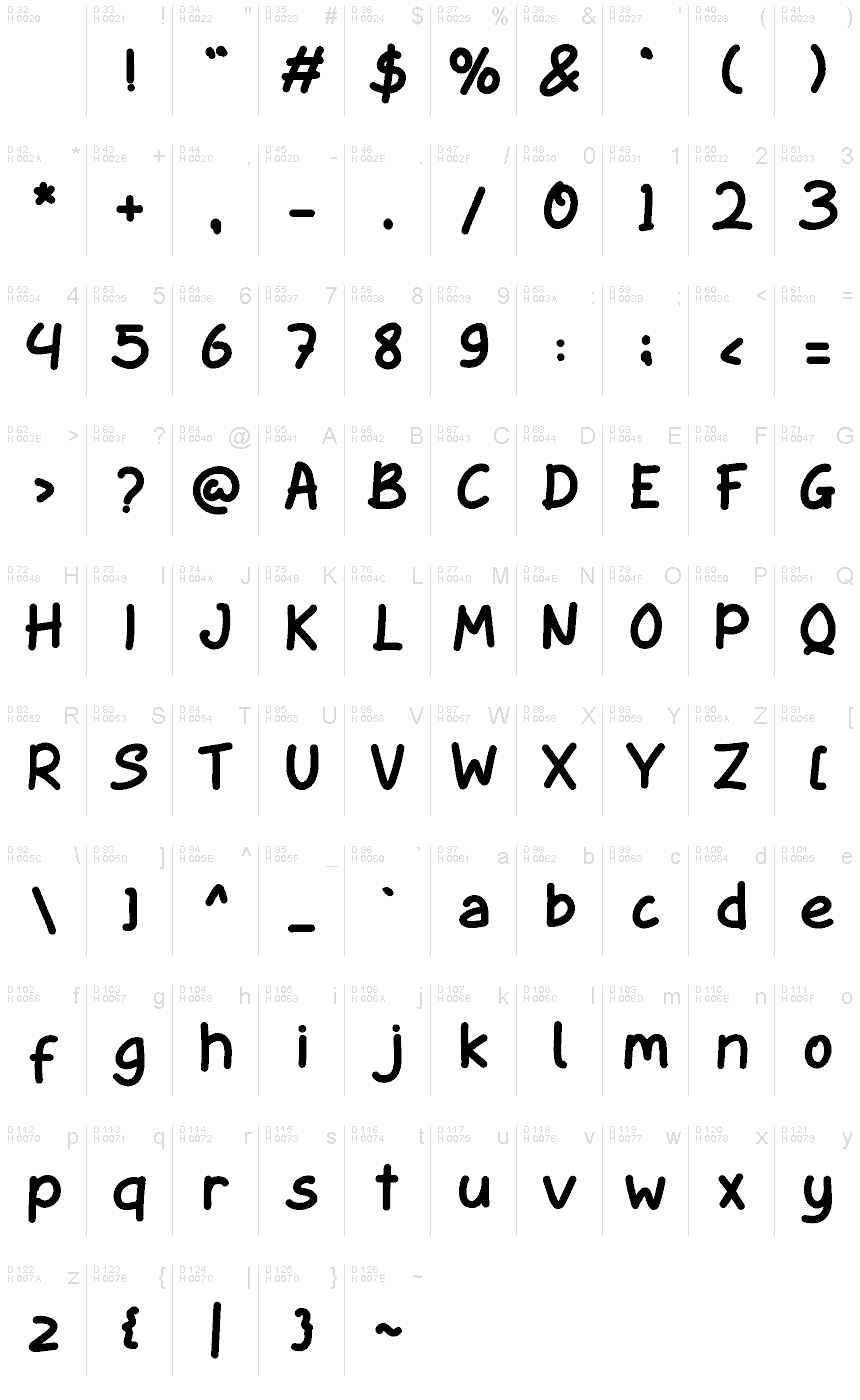
Autumn Children
Autumn Children font is a bold and authentic handwritten font by QR Design. Inspired by the art of nature, Autumn makes every possible to recreate those innate beauties in every glyph. It reconnects your designs with the world, offering an opportunity to indulge in exciting experiences that can be easily recalled with an easygoing, relaxed style. However, that’s not all its charm since it also holds a modern aesthetic.
Autumn children would look magnificent in food projects whether it’s packaging or branding items like food posters and social media posts. You may use it for logos too (particularly sports) or autumn-inspired designs where it could simply shine!